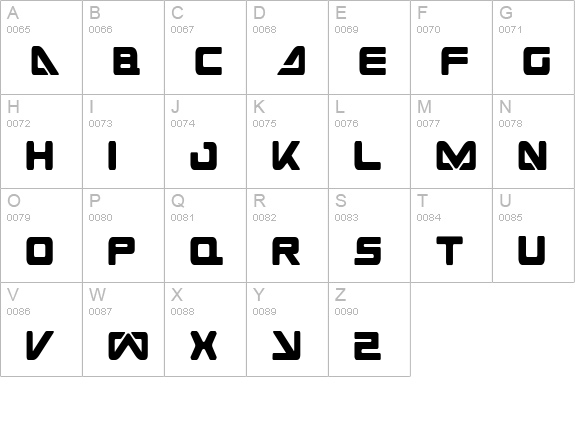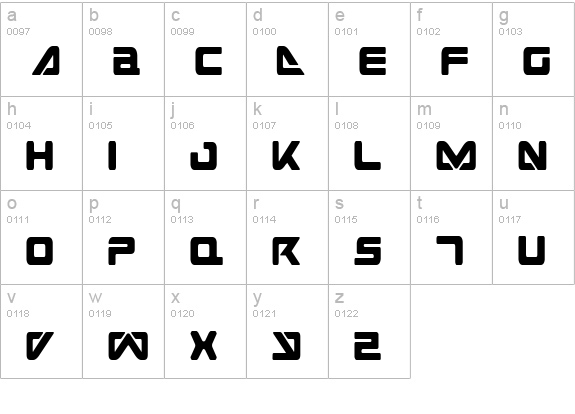
Sea Dog 2001 Condensed Font Details
Sea Dog 2001 Condensed is a distinctive, condensed-width variant in the Sea typeface family \xE2\x80\x94 well suited to design and typography projects.
Introducing Sea Dog 2001 Condensed, a font that is sure to make waves in the design world. This condensed typeface exudes a sense of boldness and strength, making it the perfect choice for any project that requires a touch of sophistication. With its clean lines and sleek curves, Sea Dog 2001 Condensed commands attention and adds a touch of elegance to any design. Whether you're creating a logo, designing a website, or crafting a captivating headline, this font will effortlessly elevate your work to new heights. What sets Sea Dog 2001 Condensed apart is not just its stunning aesthetic appeal, but also its practicality. The condensed style allows for more text to fit within a limited space, making it ideal for creating impactful headlines or conveying important information in a concise manner. But perhaps the most exciting aspect of Sea Dog 2001 Condensed is that it's absolutely free! That's right, this remarkable font is freely available to download at FontsMarket.com. Now you can enjoy the beauty and versatility of Sea Dog 2001 Condensed without breaking the bank. So why wait? Download Sea Dog 2001 Condensed today and set sail on your next design adventure. With its unmatched style and accessibility, this font is sure to make a lasting impression and become a staple in your font collection. Don't miss out on this incredible opportunity to enhance your designs with Sea Dog 2001 Condensed – the font that combines elegance, practicality, and freedom.